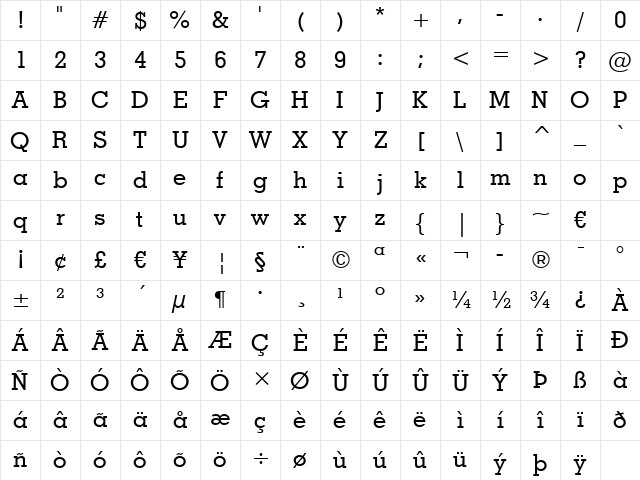
GeoSlab703 Md BT Medium
GeoSlab703 Md BT Family
GeoSlab703 Md BT Medium
Complete GeoSlab703 Md BT Medium glyph index. Displaying only characters natively supported by GeoSlab703 Md BT Medium font.
Design Context for GeoSlab703 Md BT
GeoSlab703 Md BT features prominent, blocky serifs that give it a confident, grounded presence - equally at home in editorial settings and bold branding work.
Pro Tip: Use GeoSlab703 Md BT for headlines and subheadings where its slab serifs can make an impression. It also holds up well in mid-size body copy thanks to its sturdy construction.